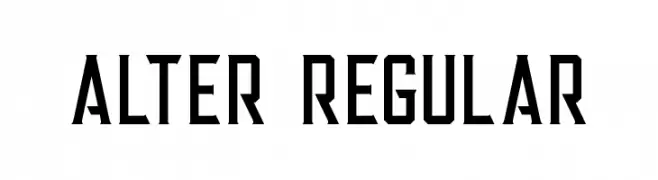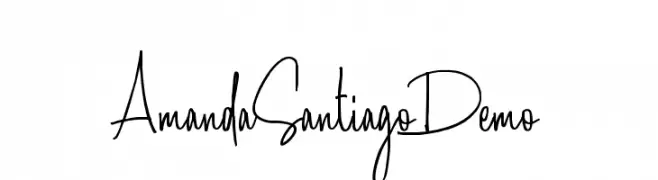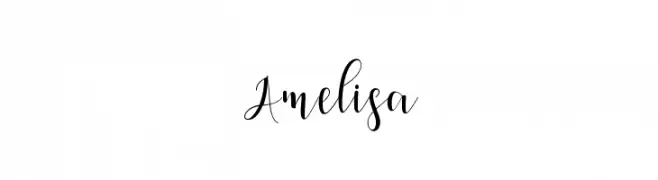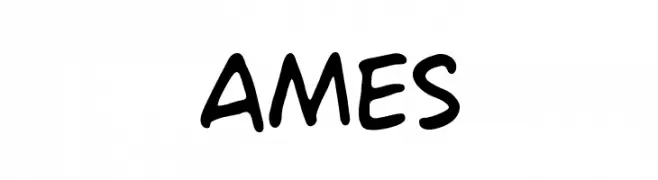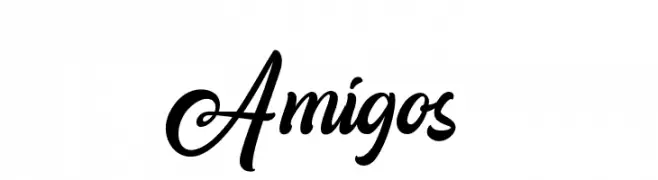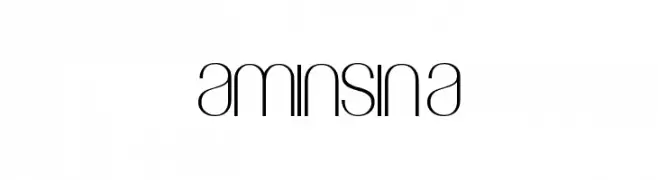
( Roland Huse Design - Roland Huse - rolandhuse.com )
A fluid and elegant script font with a handwritten calligraphy style.
( Typhoon Type - Suthi Srisopha - www.typhoontype.net )
A playful, handwritten font with a modern, energetic style.
( Roland Huse Design - Roland Huse - rolandhuse.com )
A classic serif font with bold strokes and a traditional, elegant appearance.
( Saridezra - creativemarket.com/saridezra )
An elegant, flowing cursive font with interconnected letters.
( Thirtypath - www.thirtypath.com )
An elegant script font with intricate flourishes and a refined, flowing style.
( Thirtypath - www.thirtypath.com )
An elegant script font with intricate swashes and flowing letterforms.
( ViactionType - Lukman Hidayat - www.myfonts.com/foundry/Viaction_Type/ )
A playful and casual handwritten font with fluid, slightly irregular strokes.
( Nur Cholis Majid )
A bold, geometric font with sharp angles and a modern, industrial feel.
( Noe Araujo - noearaujo.com/ )
A tall, narrow, hand-drawn font with a unique, artistic style.
( Ohab Tbj )
A playful, bold font with zigzag edges and rounded characters.
( Vladimir Nikolic - www.coroflot.com/vladimirnikolic )
A bold, condensed font with a geometric style and consistent stroke width.
( Vladimir Nikolic - www.coroflot.com/vladimirnikolic )
A bold, decorative font with boxed, vintage-style uppercase letters.
( Vladimir Nikolic - www.coroflot.com/vladimirnikolic )
A modern italic font with sharp, angular edges and a dynamic slant.
( Vladimir Nikolic - www.coroflot.com/vladimirnikolic )
A bold, outlined typeface with a filled interior, offering a modern and structured look.
( Vladimir Nikolic - www.coroflot.com/vladimirnikolic )
A bold, outlined font with a modern and geometric style.
( Vladimir Nikolic - www.coroflot.com/vladimirnikolic )
A modern, geometric font with tall, narrow letterforms and consistent stroke width.
( Vladimir Nikolic - www.coroflot.com/vladimirnikolic )
A playful, dinosaur-themed decorative font with detailed textures.
( Pisón )
A dynamic, expressive handwritten font with fluid strokes.
( Vinzent Britz - vinzent.me )
A bold, geometric font with a modern and clean aesthetic.
( ViactionType - Lukman Hidayat - www.myfonts.com/foundry/Viaction_Type/ )
A bold, playful script font with interconnected characters and a modern decorative style.
( Tano Veron - www.be.net/tanoveron )
A bold, stencil-style font with geometric shapes and high contrast.
( Thirtypath - www.thirtypath.com )
A playful and elegant script font with flowing, interconnected letters.
( Thirtypath - www.thirtypath.com )
A playful and elegant script font with flowing, interconnected letters.
( Måns Grebäck - www.mansgreback.com )
A flowing, cursive font with elegant, sweeping strokes.
( Rifan Asri )
A delicate and elegant script font with flowing, graceful strokes.
( Rifan Asri )
An elegant, flowing script font with thin, delicate strokes and graceful curves.
( Puff - - www.puff.com.ar )
Cartoon character dingbat font with bold, rounded illustrations.
( Pollem Studio - Muhammad Nur - www.creativefabrica.com/designer/polem/ref/2050/ )
A cursive, handwritten font with elegant, flowing strokes.
( Type Gang - Fitria Ulfa - fontbundles.net/type-holic )
A bold, handwritten font with a playful and energetic style.
( Victor Berbel - behance.net/victorberbel )
A modern, geometric font with high contrast and bold, artistic strokes.
( Roch Art )
A playful and whimsical handwritten font with dynamic strokes.
( Thor Christopher Arisland - www.tcarisland.com )
A bold, geometric stencil font with high contrast and industrial style.
( Vladimir Nikolic - www.coroflot.com/vladimirnikolic )
A bold, geometric font with a modern and stylish design.
( Sronstudio - Yusron Billah )
A flowing cursive font with elegant, connected strokes.
( Vladimir Nikolic - www.coroflot.com/vladimirnikolic )
A geometric, modern font with clean lines and consistent stroke width.